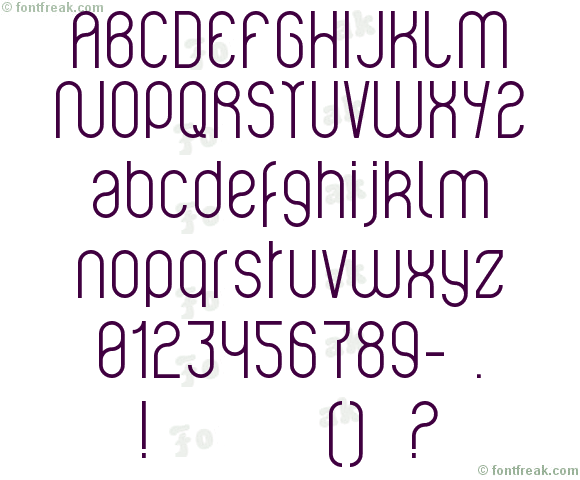
Violette, designed by Benoit Sjoholm, is a captivating display font characterized by its unique blend of elegance and playfulness. This freeware font falls into the decorative category, making it an excellent choice for projects that require a touch of sophistication. Its distinct visual characteristics include a moderate stroke weight and a smooth, flowing structure that exudes charm. The characters feature subtle contrast, allowing for legibility while maintaining an artistic flair. The spacing is well-balanced, which enhances readability and ensures that each letter stands out beautifully.
Violette is particularly well-suited for a variety of creative applications. Its enchanting style makes it an ideal choice for wedding invitations, where it can add a romantic touch to the overall design. Additionally, it shines in movie posters, where its unique appearance can capture attention and evoke emotion. Restaurant menus also benefit from Violette’s artistic qualities; it adds personality and sophistication that can elevate a dining experience. Content creators will find it perfect for social media graphics and branding projects that aim to convey a sense of style and creativity.
Targeting graphic designers, small business owners, and content creators, Violette offers versatility and artistic expression. Its free availability encourages experimentation, making it accessible for anyone looking to make their designs stand out. When you opt for a Violette font free download, you’re not just acquiring a typeface; you’re embracing a creative tool that can elevate your projects. Violette stands out for its ability to blend artistry with practicality, ensuring it remains a favorite among those who appreciate the nuances of typography.